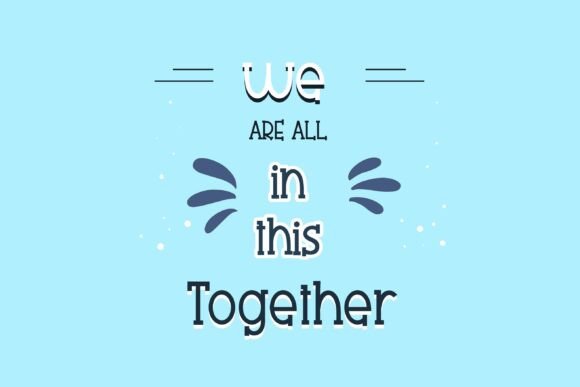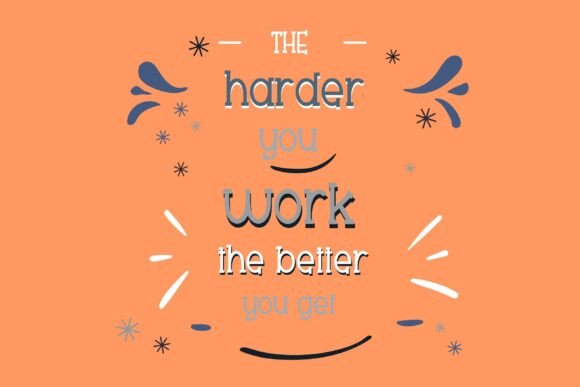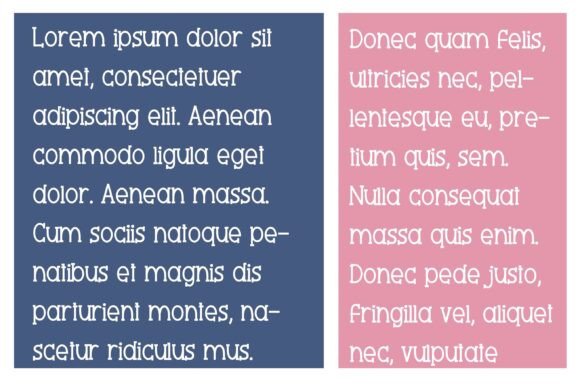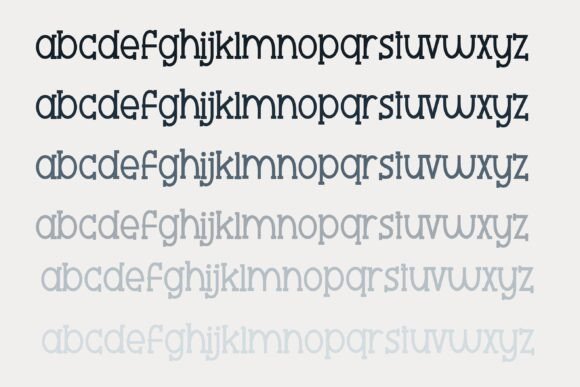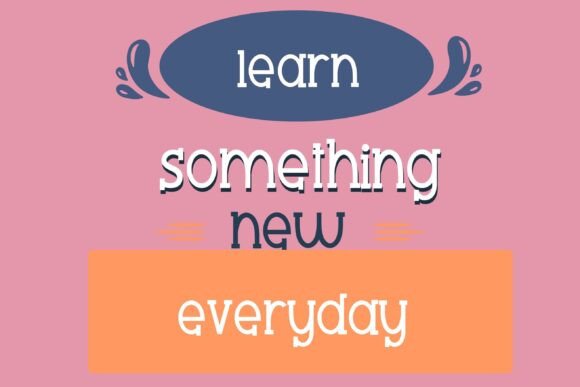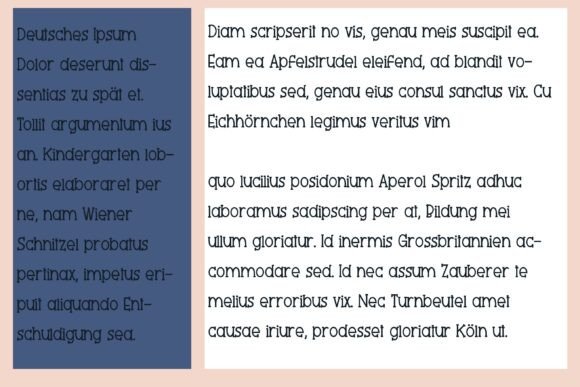
The Charm of Germon Font: A Hand-Crafted Delight for Designers and Crafters
I still remember the struggle I faced while working on a wedding invitation project. My client wanted a font that exuded warmth, personality, and a touch of elegance. I scoured the internet, tried out numerous fonts, but nothing seemed to fit the bill. That’s when I stumbled upon the Germon Font, a beautiful hand-crafted font with slab serifs that instantly won my heart. In this article, I’ll share my experience with Germon Font, its features, and how to make the most of it in various design platforms.
A Personal Review of Germon Font
What I Love About Germon Font
- ✨ Unique, hand-crafted aesthetic that adds a personal touch to any design
- ✅ Slab serifs that provide a nice balance between elegance and playfulness
- 🎨 Versatile and suitable for a range of projects, from invitations and greeting cards to posters and social media graphics
- 💻 Highly legible, even at smaller font sizes
While Germon Font is an excellent choice for many projects, there are a few things to keep in mind:
- 🤔 Limited availability of stylistic alternates, which might limit its use in certain designs
- ⚠️ May not be the best choice for body text or long-form content, as its hand-crafted nature can be tiring to read in large blocks
The Story Behind Germon Font
Germon Font was designed by a talented typographer who wanted to create a font that captured the warmth and personality of handwriting. Inspired by traditional printing techniques and a passion for lettering, the designer crafted a font that would be both elegant and approachable. Today, Germon Font is a popular choice among designers and crafters who want to add a touch of personality to their projects.
A: Germon Font is versatile and can be used in a variety of designs, from invitations and greeting cards to posters and social media graphics. Experiment with different font sizes, colors, and styles to find the perfect fit for your project.